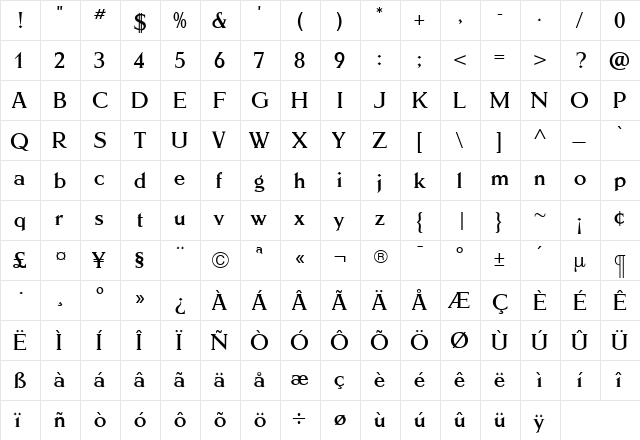
SchillerAntiquaBold Medium
Design Context for SchillerAntiquaBold Typeface
SchillerAntiquaBold takes a measured approach to typography — its balanced proportions and neutral character make it a reliable workhorse for both digital and print work. Its bold stroke weight gives it real presence on the page.